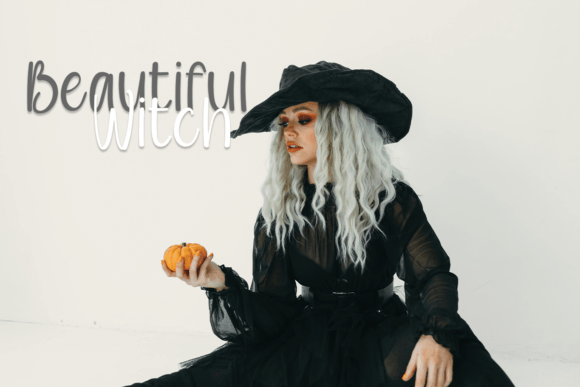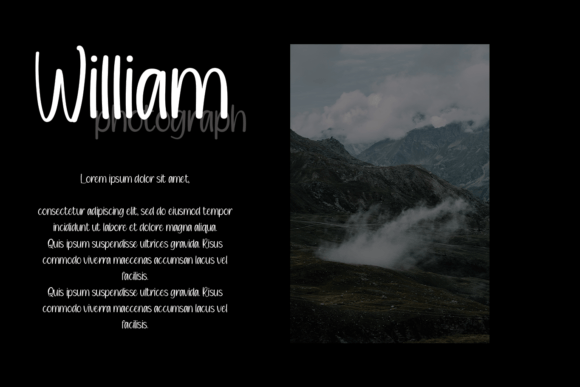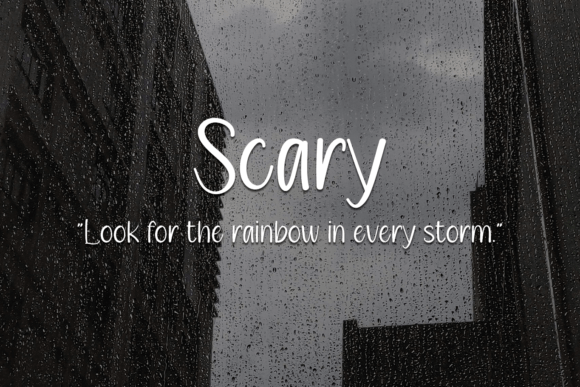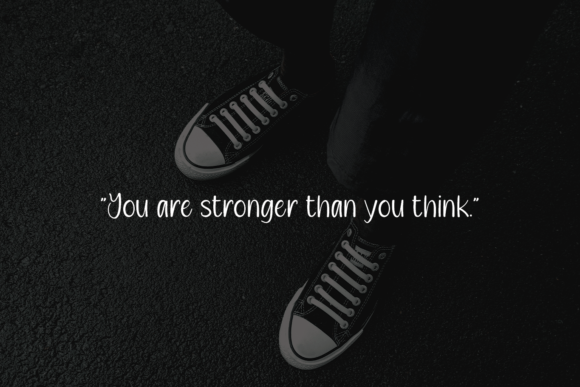
Introducing Halloween Font: Elevate Your Designs with Elegance and Sophistication
Are you a designer or crafter looking for a font that exudes elegance and sophistication? Look no further than the Halloween font. This stylish and incredibly elegant script font is perfect for adding a touch of refinement to your designs. Whether you’re working on wedding invitations, thank you cards, quotes, greeting cards, logos, business cards, or any other design that needs a handwritten touch, Halloween font is the perfect choice.
What Makes Halloween Font So Special?
Halloween font is a beautifully crafted script font that features flowing lines, intricate details, and a touch of whimsy. Its elegant and refined appearance makes it perfect for designs that require a high level of sophistication. The font is highly versatile and can be used for a wide range of design projects, from formal wedding invitations to creative craft projects.
Key Features of Halloween Font
- Elegant and Refined Appearance: Halloween font features a beautiful, flowing script that adds a touch of elegance to any design.
- Highly Versatile: The font can be used for a wide range of design projects, from formal wedding invitations to creative craft projects.
- Easy to Read: Despite its elegant appearance, Halloween font is highly legible and easy to read, making it perfect for designs that require a clear and concise message.
Uses for Halloween Font
Halloween font is perfect for a wide range of design projects, including:
- Wedding Invitations: Add a touch of elegance and sophistication to your wedding invitations with Halloween font.
- Thank You Cards: Create beautiful and heartfelt thank you cards with Halloween font.
- Quotes and Posters: Use Halloween font to add a touch of elegance to your quotes and posters.
- Greeting Cards: Create stunning greeting cards for special occasions, such as birthdays, anniversaries, and holidays.
- Logos and Branding: Use Halloween font to create elegant and sophisticated logos and branding materials.
- Business Cards: Add a touch of refinement to your business cards with Halloween font.
Tips for Using Halloween Font
Here are a few tips for using Halloween font in your designs:
- Use it Sparingly: Halloween font is a elegant and refined font, so use it sparingly to add a touch of sophistication to your designs.
- Experiment with Different Colors: Halloween font looks stunning in a range of colors, so experiment with different colors to find the one that works best for your design.
- Pair it with Other Fonts: Halloween font pairs well with other fonts, so experiment with different font combinations to create a unique and eye-catching design.
In conclusion, Halloween font is a beautiful and elegant script font that is perfect for designers and crafters looking to add a touch of sophistication to their designs. Its highly versatile and easy to read, making it perfect for a wide range of design projects. With its flowing lines, intricate details, and refined appearance, Halloween font is sure to elevate your designs to the next level.